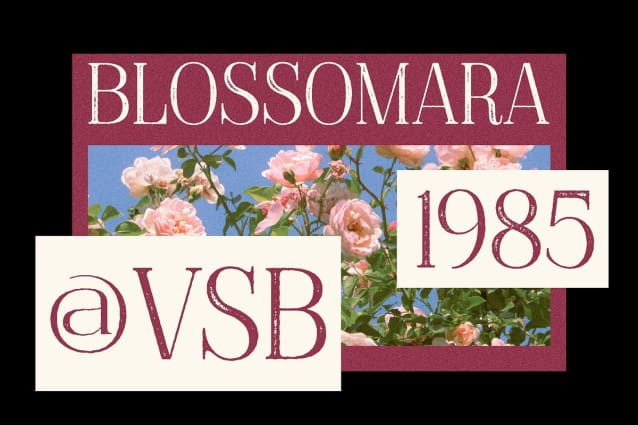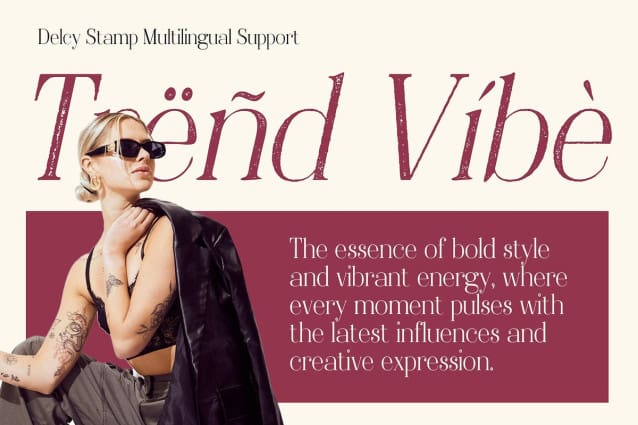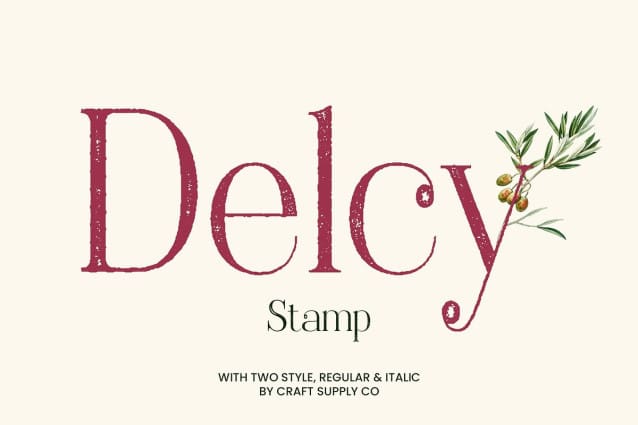
Delcy Stamp Font
Delcy Stamp is a modern serif font that seamlessly combines sleek, sharp lines with clean, refined details, offering a sophisticated, timeless appearance. The elegant design ensures a professional and polished look, while the carefully crafted serifs add a sense of classic refinement. This versatile typeface works wonderfully in projects that demand sophistication and luxury. Whether it’s branding for high-end products or refined editorial designs, Delcy Stamp stands out with a perfect balance of modernity and tradition.
Stamp Effect for Texture and Depth The unique stamp effect on Delcy Stamp brings texture and depth to each character, creating an almost ink-pressed impression. This adds a tactile quality to the design, evoking the charm of traditional print methods and infusing the font with authenticity and character. The subtle yet impactful texture makes the font appear as though it has been hand-stamped or imprinted, giving each letter a personality of its own.
Blending Modern and Vintage Styles Delcy Stamp elegantly balances modern, sleek letterforms with the aged, vintage appeal of the stamp effect. This fusion creates a harmonious contrast, offering the best of both worlds—contemporary design with a nostalgic twist. While the font maintains the crisp, sharp edges of a modern serif, the stamp effect softens the overall look, adding a warm and organic feel.